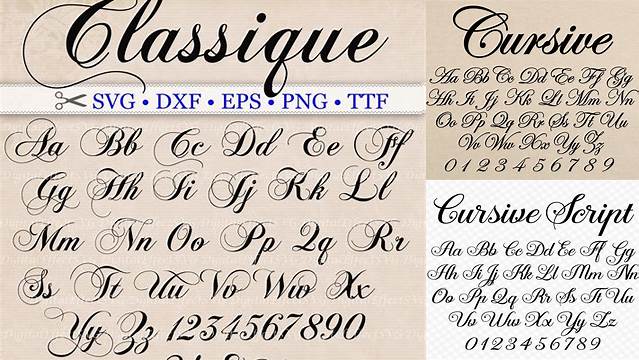
Download Fancy Cursive Fonts: Your Ultimate Guide
Are you looking to download fancy cursive fonts? You're in the right place! Cursive fonts, also known as script fonts, bring a touch of elegance and sophistication to any design project. From invitations and logos to social media graphics and website headers, a well-chosen cursive font can make a lasting impression. This comprehensive guide will walk you through everything you need to know about finding, downloading, and using these beautiful fonts effectively.
Why Choose Cursive Fonts?
Choosing the right font is like choosing the right outfit – it sets the tone! Cursive fonts are celebrated for their flowing, handwritten appearance, which instantly adds a personal and stylish vibe to your work. Fancy cursive fonts are particularly popular because they offer a wide range of styles, from the classic and refined to the modern and playful. The allure of cursive fonts lies in their versatility. You can use them in a variety of projects, like branding, where they can communicate a sense of luxury or vintage charm. Or you can use them in event stationery, adding a personal touch to wedding invitations or birthday cards. The beauty of cursive fonts is they can create a visual narrative that resonates with your audience. They can evoke feelings of nostalgia, romance, or creativity.
One of the primary reasons people download fancy cursive fonts is to enhance the visual appeal of their designs. They add a touch of elegance that is often missing from more basic fonts. These fonts can also convey sophistication, especially for projects aiming to project a premium or high-end image. The fluidity of cursive fonts is another major advantage. The connected letterforms create a natural flow, making text visually appealing and easy to read, unlike certain other decorative fonts that can be difficult to decipher. If you are working on a project that requires a personal touch, cursive fonts are also an excellent choice. They can mimic handwriting, thus adding a sense of authenticity and intimacy to your designs. In branding, a well-chosen cursive font can help a brand stand out from the crowd, especially in industries where creativity and artistic flair are valued.
However, there are also some important considerations when working with cursive fonts. One of the most crucial is readability, especially for body text. It's best to use cursive fonts for headlines, titles, or short pieces of text where readability isn't as critical. Ensure the font is easy to read at the size you'll be using it. Test your font in various contexts to ensure it works well. This includes different sizes, backgrounds, and text styles. Also, be aware that some cursive fonts can be challenging to read on digital screens, and you may need to adjust the spacing and kerning to improve legibility. Always select a font that complements the overall design and message. It should enhance, not detract from, your creative goals. And lastly, consider licensing agreements. Always ensure you have the necessary licenses for commercial use of the font, respecting the designer's hard work and intellectual property rights.
Tips for Using Cursive Fonts Effectively
Once you download fancy cursive fonts and have them installed, you should ensure you use them well. Here are some tips to help you do just that. First and foremost, maintain readability. Use cursive fonts mainly for headings, titles, or short text blocks. For body text, stick to clear, easy-to-read fonts to ensure the content is accessible to your audience. Pair your cursive fonts with complementary fonts. Mixing a cursive font with a clean sans-serif or serif font can create a balanced and visually appealing design. Choose font combinations that work together. This ensures a harmonious visual experience. Ensure that you are adjusting the font size appropriately. Make sure the cursive font you choose is large enough to be read, but not too large. Balance is key. It is always important to consider the context of your design. Is it for a wedding invitation, a logo, or a website header? The purpose will dictate the best font style. Select a cursive font that fits the overall tone and feel you want to create. If you want to make something vintage-inspired, choose a classic script font. For something modern, opt for a more contemporary style.
Adjust the kerning and spacing. This can significantly impact readability, especially for cursive fonts. You may need to adjust the space between letters to improve the overall look of your design. Remember, good typography is about clarity and aesthetics. Use these adjustments to make your text look polished. Experiment with different font weights and styles. Most cursive fonts come with different weights and styles. Choose the one that best suits your design. For example, a lighter weight might be ideal for a delicate invitation, while a bold weight might be perfect for a striking logo. Also, always consider the color and background. Make sure your font color contrasts well with the background. Dark cursive fonts on a light background are usually a great choice. Avoid using cursive fonts on busy or complex backgrounds, which can make the text difficult to read.
Avoiding Common Mistakes
When you're diving into the world of download fancy cursive fonts, there are a few common pitfalls to avoid. Making mistakes in typography is a common mistake that can affect your end product. One of the biggest mistakes is overusing cursive fonts. Do not use cursive fonts for everything! They're best used sparingly to add emphasis or create a special touch. Avoid using cursive fonts for long blocks of text. It will make your content hard to read, frustrating your audience. Another major mistake is choosing a font that is too elaborate or hard to read. Always make sure your font is legible, even at smaller sizes. Remember, the primary goal is to convey your message clearly. Poor pairing of fonts is another frequent blunder. This is something you should carefully think about when you download fancy cursive fonts. Avoid pairing cursive fonts with fonts that clash or compete for attention. Instead, look for complementary combinations that work together harmoniously.
Poor kerning and spacing are also common mistakes. Pay careful attention to how the letters fit together. Adjust the spacing to improve readability. Do not ignore the licensing terms. Always make sure you understand the license and usage rights of the fonts you download. Ignoring these terms can lead to legal issues. Finally, do not forget to test your designs. Always preview your design in different sizes and contexts. This will help you identify any potential readability or design issues. Test your designs on various devices to make sure the font looks good everywhere. A good design works well on all devices.
Conclusion: Elevate Your Designs with Cursive Fonts
So there you have it! Cursive fonts can be a fantastic addition to any design project. By following these tips, you can select, download, and use cursive fonts to create beautiful, elegant designs. Whether you're crafting invitations, designing logos, or working on a website, the right cursive font can significantly enhance your project. Remember to consider your audience, the message you want to convey, and the overall aesthetic of your design. With a little creativity and attention to detail, you can download fancy cursive fonts and use them to create truly stunning visuals. Now, go ahead and start exploring the world of cursive fonts. Happy designing!